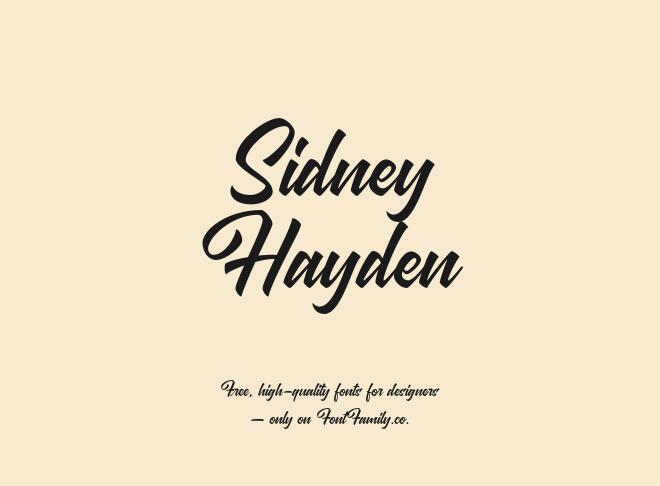
Sidney Hayden Font
The Sidney Hayden Font is a creative and versatile typeface by Hayden Design Studio. This font, with its playful yet elegant style, is perfect for various design projects, from logos and branding to invitations and social media graphics. Its modern handwritten script style makes it a great choice for designers looking to add a personal touch to their projects. The Sidney Hayden Font is reminiscent of classic handwriting, but with a contemporary twist, making it a refreshing alternative to more traditional script fonts. It's free for personal use, making it a great choice for both amateur and professional designers. Its versatility and unique style make the Sidney Hayden Font a must-have in any designer's toolkit.